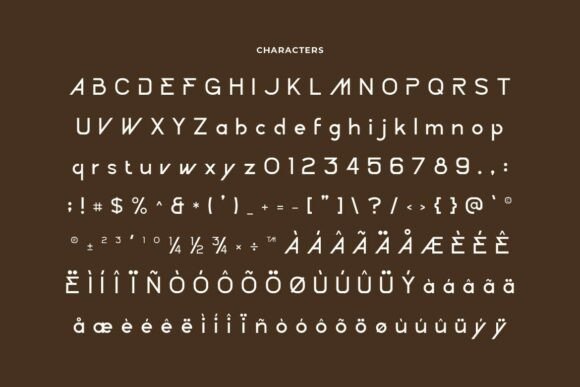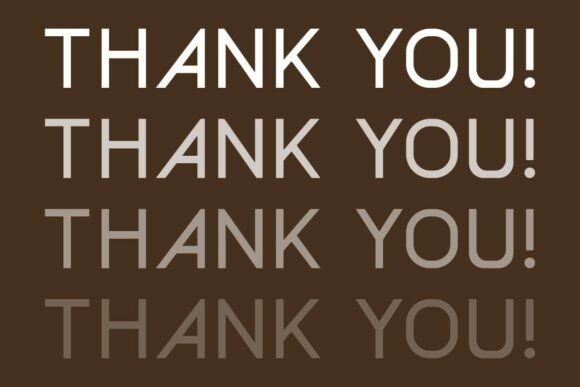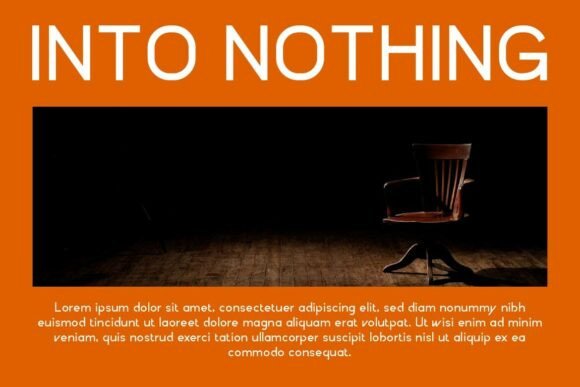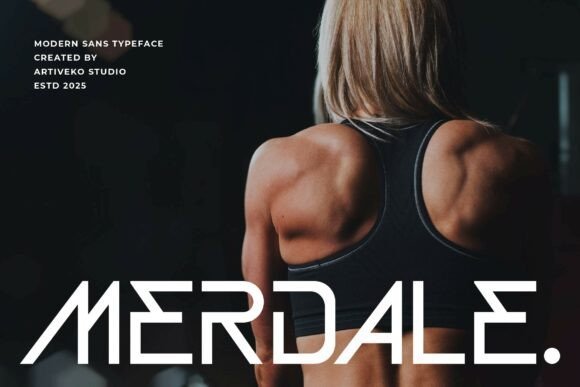
Introduction to Merdale Font
Merdale is a modern display sans serif font with a distinctive character and artistic flair.
Designed with playful curves, clean lines, and thoughtful letterform variations, Merdale brings a bold yet approachable personality to your designs Perfect for magazine headlines, posters, business cards, product packaging, and digital branding, this font makes every word stand out with style.
Key Features of Merdale Font